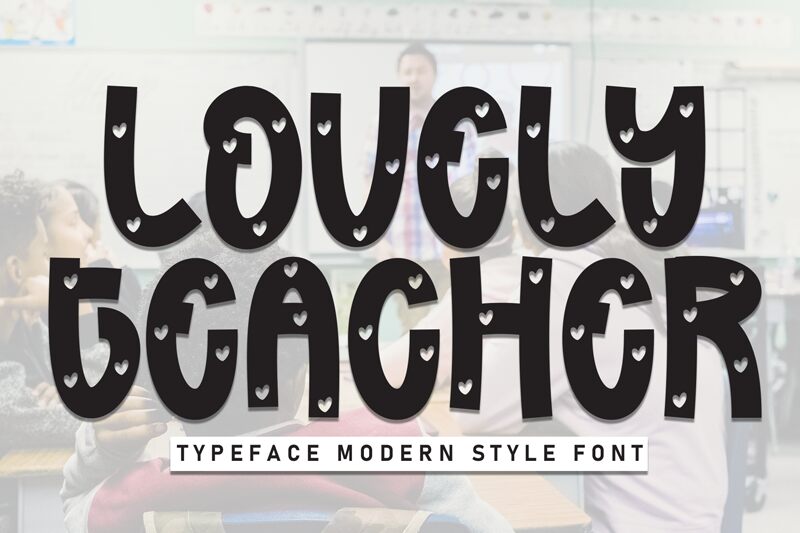
Lovely Teacher font by Andi Moz is a free font that brings a playful and whimsical touch to your design projects. This font sports a modern styling with heart-shaped decorative features that add a friendly and inviting atmosphere wherever they’re used. Its fun and youthful feel makes it a suitable choice for contemporary design applications that require a light-hearted touch.
Perfect for holiday-themed projects, this font can be used in greeting cards, posters, social media posts, banners, websites, and packaging design. Its playful elements are also a great match for children’s books, toys, apparel, school projects, or any youthful-themed publication.
This is a sweet and friendly handwritten display font. Cute and fun, this font is ideal for writing wedding invitations, cards, or any other design that requires a playful touch.